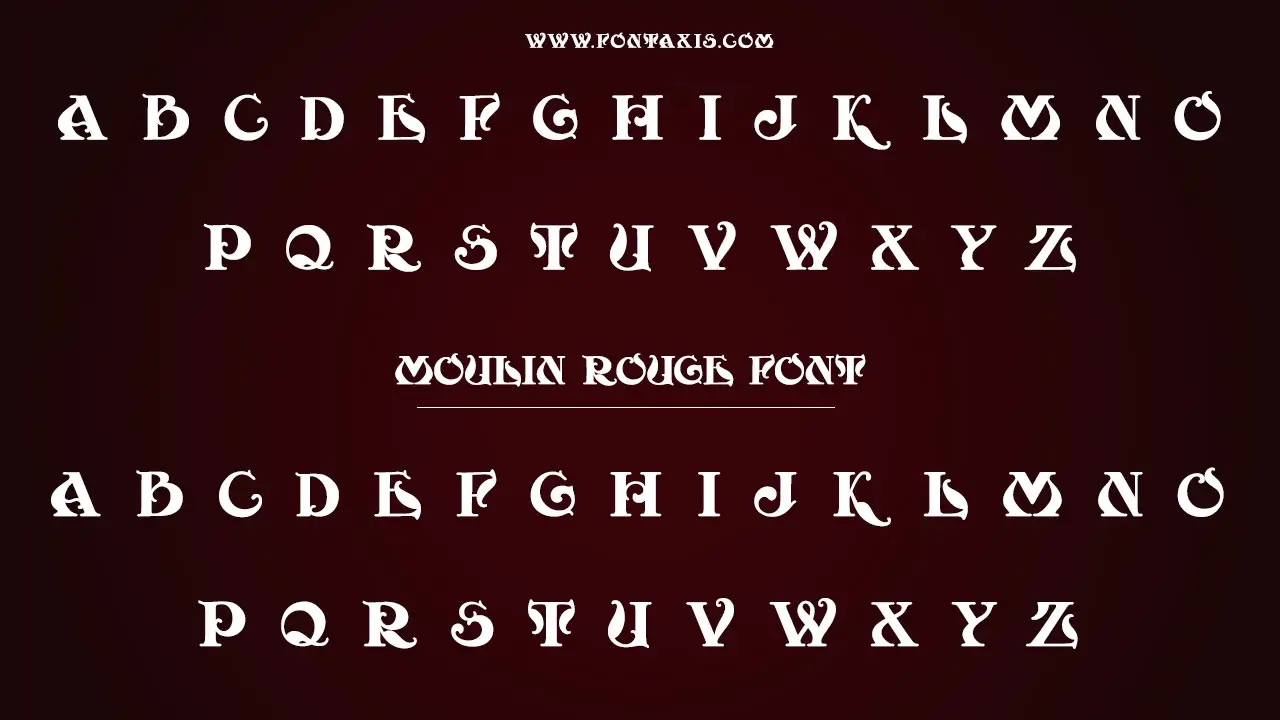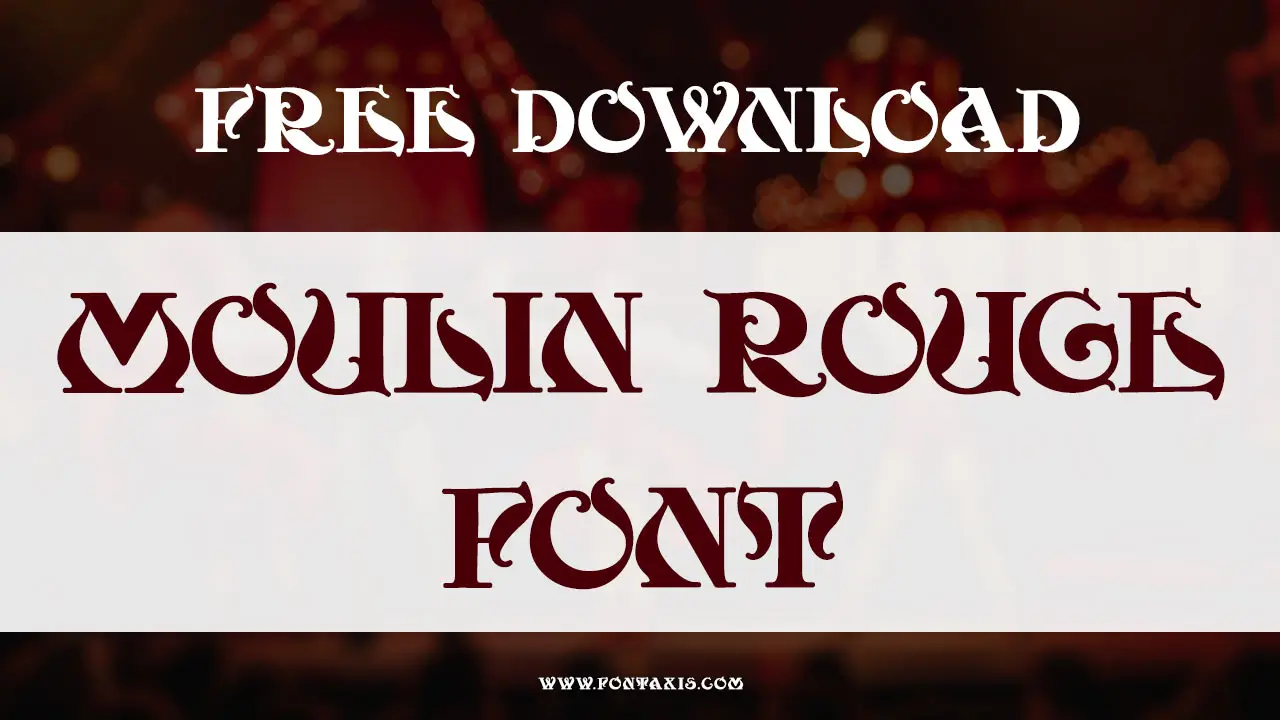
The Moulin Rouge Font was designed by Dieter Steffmann. It is a decorative typeface inspired by vintage aesthetics. The font reflects the iconic glamour of the Moulin Rouge cabaret in Paris. It features curly and ornate letterforms.
These designs bring a sense of elegance and nostalgia. The font is popular for retro-themed projects and theatrical branding. It is also ideal for creative displays. You can use it for posters, invitations, or logos. The Moulin Rouge Font adds timeless charm to any design.
Features And Highlights Of The Moulin Rouge Font
- Stylish Design
The Moulin Rouge Font, crafted by Dieter Steffmann, features decorative, curly letterforms that capture the vintage Parisian vibe. Its semi-bold weight and intricate design make it ideal for projects requiring bold, artistic elements. - Versatile Usage
From retro posters to elegant event invitations, the font suits a wide range of design purposes. Its unique aesthetic works equally well in digital and print formats. - Lightweight and Accessible
Technical Details
| Attribute | Details |
| Font Name | Moulin Rouge |
| Designer | Dieter Steffmann |
| Style | Decorative, Curly |
| Glyph Count | 178 |
| Weight | Semi-Bold |
Popular Uses
- Event Invitations
Add a vintage flair to themed party invitations or elegant wedding stationery. The Moulin Rouge Font’s decorative style ensures a captivating first impression. - Posters and Flyers
Create bold, eye-catching promotional materials for retro events, cabaret shows, or theatrical productions. - Logos and Branding
Use the font for creating logos that convey sophistication and artistic flair. It’s especially popular for businesses in the arts, fashion, or entertainment industries. - Social Media Graphics
Enhance social media posts with a touch of retro elegance. The font’s unique style is perfect for attention-grabbing headlines or decorative accents. - Signage and Menus
Ideal for restaurants or cafes, especially those with a vintage or Parisian theme. The font works beautifully for menu designs and decorative signage.
Font Pairing Suggestions
Pairing the Moulin Rouge Font with complementary typefaces can elevate your designs:
- Clean Sans-Serif Fonts: Use Montserrat or Roboto for a modern, minimalist contrast.
- Elegant Serif Fonts: Pair it with Playfair Display or Merriweather for a classic, cohesive look.
- Handwritten Fonts: Combine with a script font like Dancing Script for a playful, whimsical aesthetic.
Final Thoughts
The Moulin Rouge Font, designed by Dieter Steffmann, is a decorative typeface that combines elegance and artistic flair. Its vintage-inspired design is perfect for a range of projects, from event invitations to branding. With its free availability for personal and commercial use, it’s a valuable tool for designers looking to add a touch of retro charm to their work.
3.What Is The Best Use Of Moulin Rouge Font?
The font is ideal for retro-themed designs, invitations, posters, logos, and signage that require a decorative or vintage touch.
5.Does Moulin Rouge Font Include Special Characters?
Yes, the font includes 178 glyphs, covering basic Latin characters, numbers, and partial accents.
6.Is Moulin Rouge Font Suitable For Large-Scale Printing?
Absolutely! Its bold, decorative style is perfect for large-scale printing, such as banners and posters, ensuring visibility and impact.
8.How Do I Pair Moulin Rouge Font With Other Typefaces?
Pair it with clean sans-serifs like Montserrat for a balanced look or with elegant serifs like Playfair Display for a vintage feel.
9.Is Moulin Rouge Font Multilingual?
While it supports basic Latin and partially accented characters, it may not fully support all languages. Refer to the character map for exact details.
10.What Is The Origin Of Moulin Rouge Font?
The font was designed by Dieter Steffmann, drawing inspiration from the glamorous aesthetic of the Moulin Rouge cabaret in Paris.